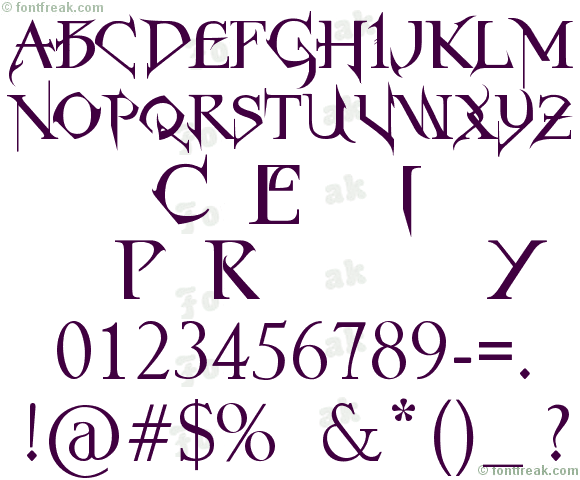
Horst Roman Gothic
Horst Roman Gothic, crafted by Horst Type Foundry, is a striking display font that masterfully blends the elegance of Roman type with the boldness of Gothic design. This freeware font, released in 2010, showcases a unique character that makes it ideal for various creative applications. The font features a mix of sharp and rounded strokes, providing a balanced contrast that captures attention while remaining highly legible. The moderate stroke weight and consistent spacing contribute to its versatility, allowing it to shine in both large headers and smaller text.
The visual characteristics of Horst Roman Gothic are defined by its robust letterforms, which exhibit a refined yet commanding presence. The decorative elements are minimal but effective, allowing the font to communicate its message without overwhelming the viewer. This makes it suitable for a range of use cases, including wedding invitations that require a touch of sophistication, movie posters that demand boldness and clarity, restaurant menus that benefit from an elegant yet readable style, and branding materials that need to make a memorable impression.
In conclusion, the Horst Roman Gothic font free download is not just a typeface; it’s a versatile tool for artistic expression. Its unique blend of Roman and Gothic influences, combined with its legibility and elegance, makes it a standout choice for any creative endeavor. Whether for print or digital media, this font is sure to enhance the visual appeal of your work.